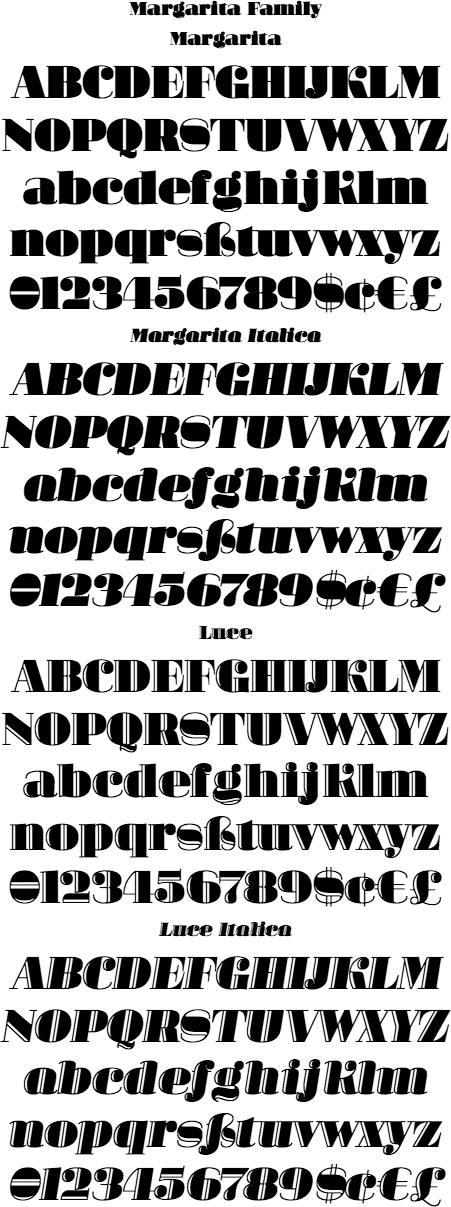
Margarita Family (4 styles) (PampaType)
PampaType's tribute to Bodoni takes the form of a humorous fat face for display use, in both solid and engraved forms. Four years after Bodoni's death, Margherita, Giambattista's widow, had published the 2 volumes of the famous Manuale Tipografico, a very significant type catalogue at the epoque.Margarita includes several ligatures both standard and discretionary, and a variety of contemporary ornaments. We hope you enjoy working with this fancy type. Please use it only in huge sizes.